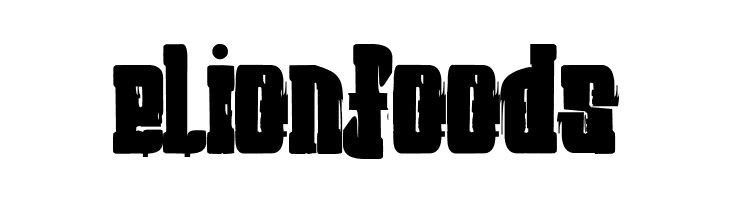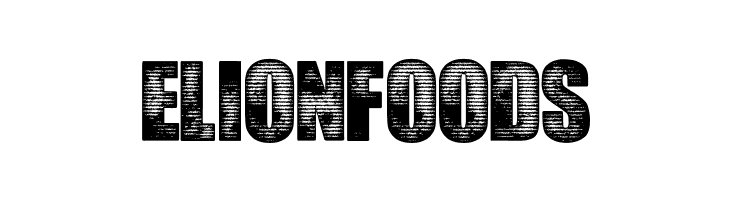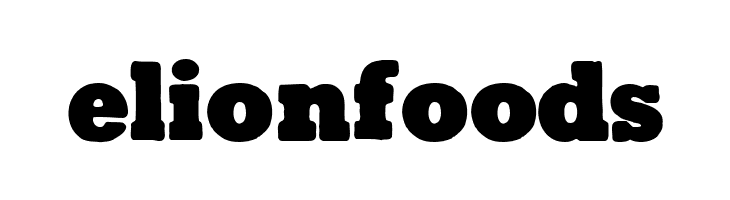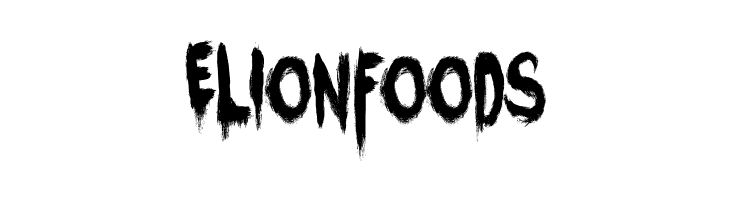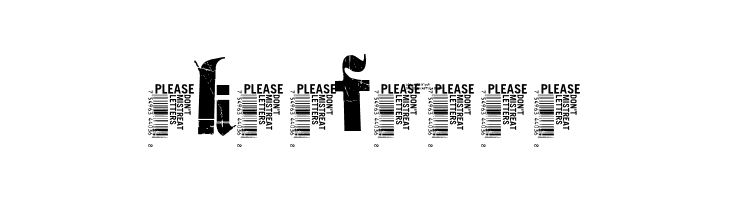
A bold, blackletter font with sharp, angular forms and high contrast strokes.
A bold, distressed font with a rugged, vintage look.
A bold, textured, and italic font with a hand-drawn style.
A bold, rounded font with a strong, playful presence.
A bold, brush-textured font with a raw and energetic style.
A bold, Gothic-inspired font with distressed texture and ornate details.
A bold, classic serif font with strong strokes and elegant serifs.